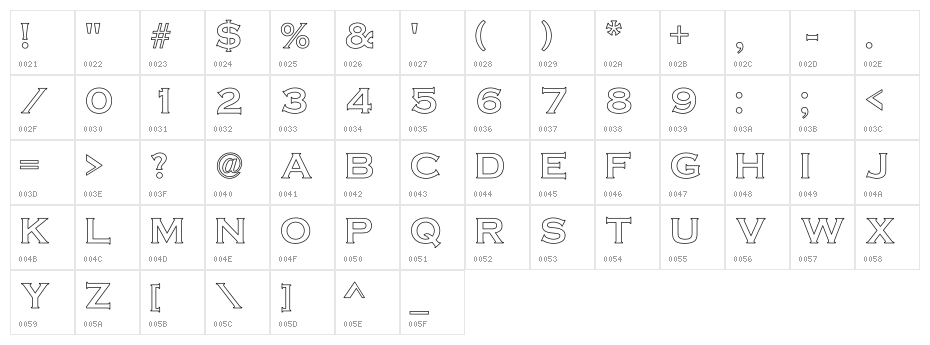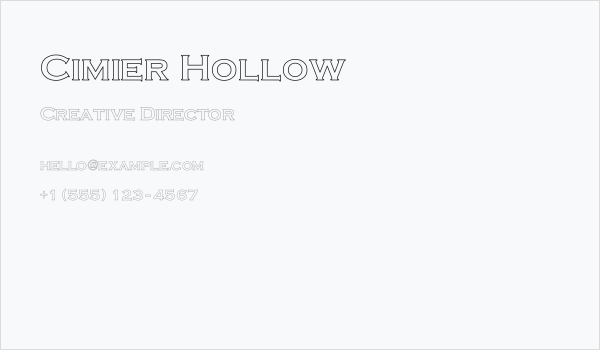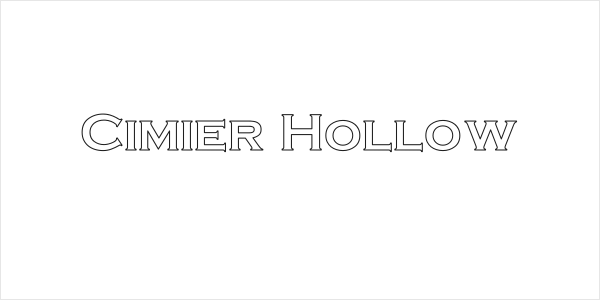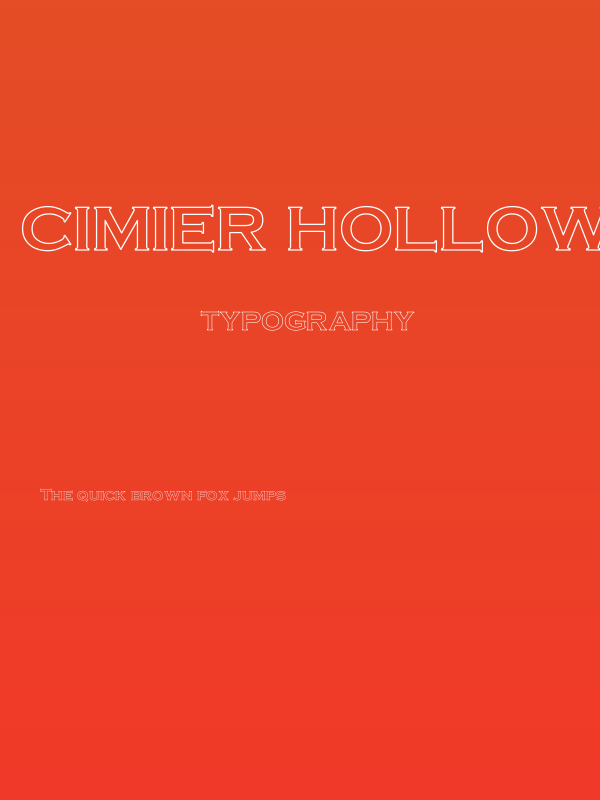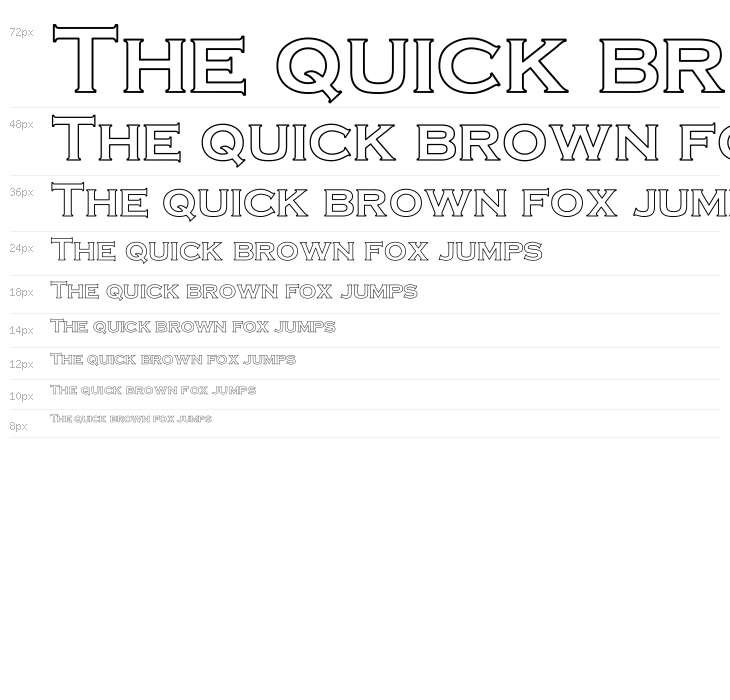
Cimier Hollow Font
Cimier Hollow Description
This font features a hollow, outlined design that gives it a distinctive and modern appearance. The characters are bold and geometric, with clean lines and a uniform stroke width that creates a sense of balance and symmetry. The uppercase and lowercase letters maintain a consistent style, with sharp angles and a structured form. The numerals and special characters follow the same design principles, ensuring a cohesive look across all glyphs. This font's hollow nature allows for creative layering and color usage, making it versatile for various design applications.
| Proposed Projects | Ideal for headlines, posters, branding, and creative design projects where a modern and bold statement is needed. |